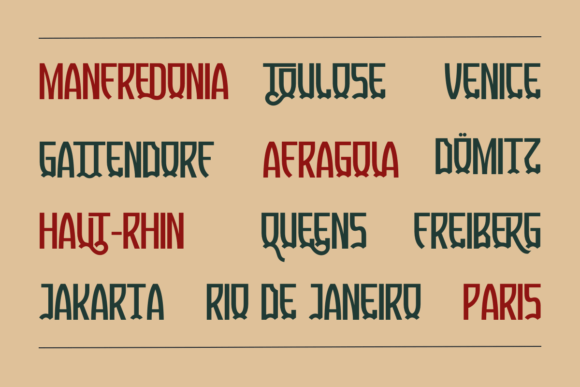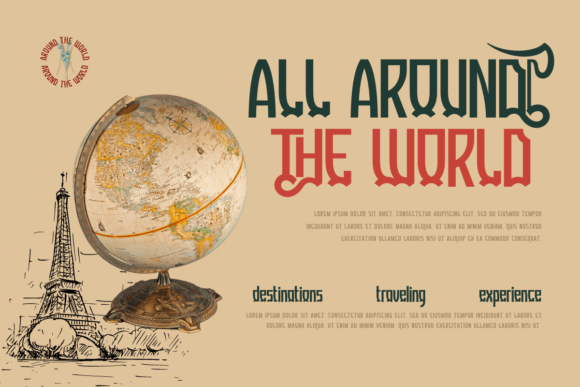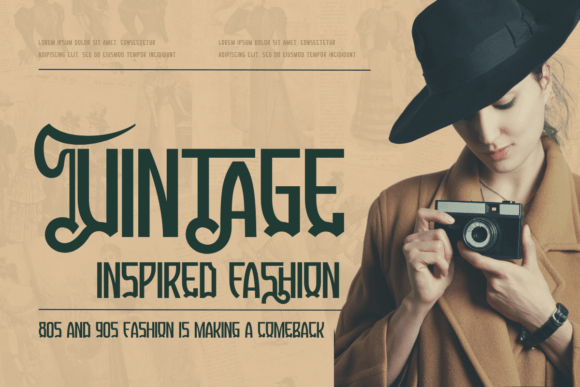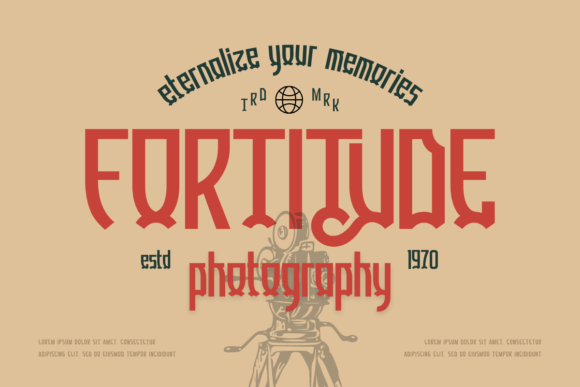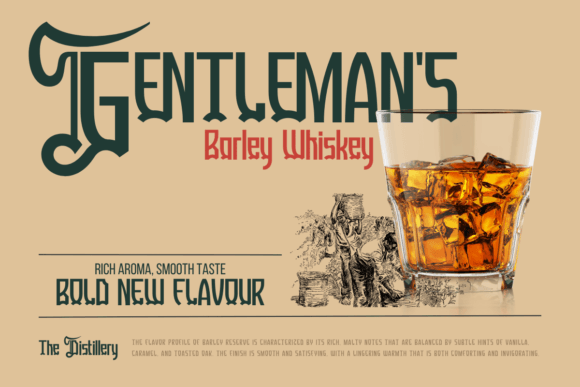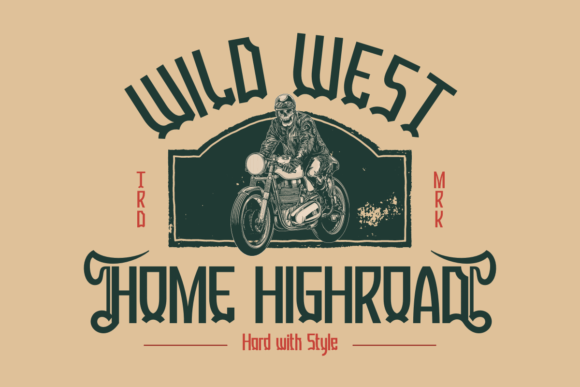
Introduction to Gueton Font
Have you ever stumbled upon an old photograph or a vintage advertisement that sparks your creativity? For designers, these moments can be a treasure trove of inspiration. The nostalgic feel and classic aesthetic of bygone eras can be a perfect addition to your creative project. That’s where Gueton Font comes in – a retro condensed font that adds a timeless touch to your designs.
With Gueton Font, you can transport your audience back in time without sacrificing high quality and readability. This versatile design resource is perfect for projects that require a vintage vibe, from travel posters to coffee shop menus. And the best part? Gueton Font is available for free download, making it an accessible addition to your design arsenal.
Whether you’re working on a personal project or a commercial client, Gueton Font is a valuable asset for designers who want to add a touch of nostalgia to their work. Its transparent background and PUA-encoded glyphs make it easy to access all the delightful details and swashes that bring your designs to life.
Key Features of Gueton Font
- High-quality, free design resource ideal for creative projects
- Features a unique, modern design with a transparent background, allowing for flexibility in use
- Supports a wide range of languages, making it a versatile choice for designers
- Designed to be highly legible, even at small font sizes, making it perfect for digital and print projects
- Suitable for use in various design applications, including logos, branding, and typography-based designs
Honest Review: Gueton Font
The Gueton Font is a fantastic design resource for any creative project. I was impressed by its high quality and versatility. One of the standout features is its transparent background, which makes it easy to integrate with any design.
Here are some things that work well: ✨
- Highly legible and readable font
- Great for both digital and print design
- Works well with a variety of design styles
However, there are a few limitations: ⚠️
- No bold or italic versions available
- Not suitable for large body text
Overall, I’m impressed with the Gueton Font. It’s a great addition to any design toolkit, and its free download makes it a must-have for any creative project. With a little bit of creativity, you can get the most out of this versatile font.
Gueton Font
The Gueton Font is a high-quality, free download that offers a unique and creative font perfect for any design project. With its transparent background, this font can be easily integrated into any design.
To get the most out of the Gueton Font, experiment with different font sizes, colors, and combinations. You can also use it to create custom logos, titles, and headings.
The Gueton Font is perfect for creative projects such as:
- Print and digital marketing materials
- Graphic design and visual identity